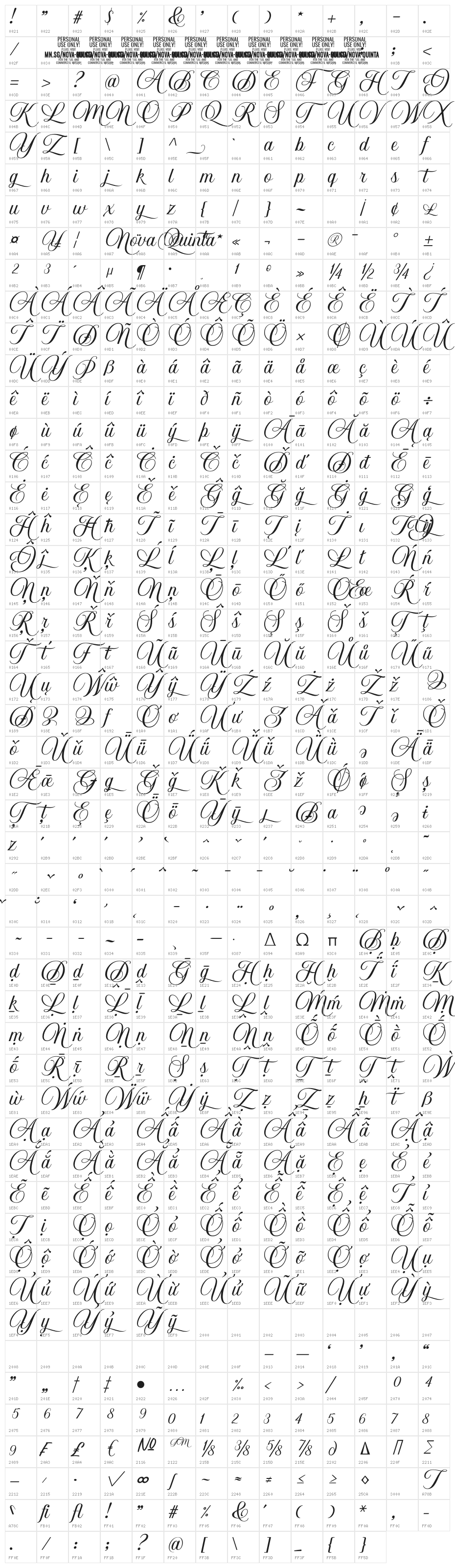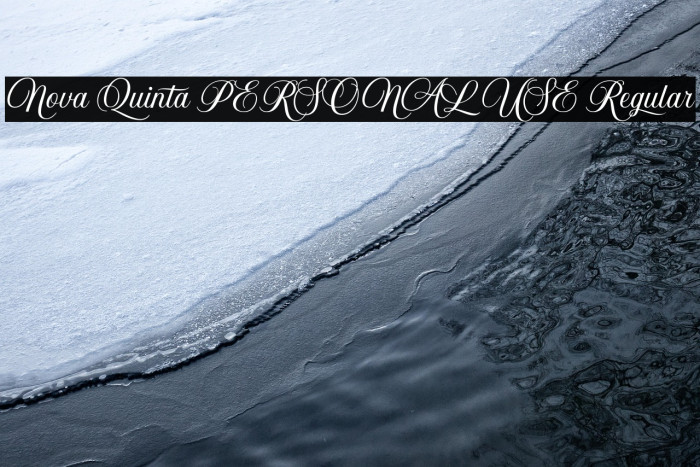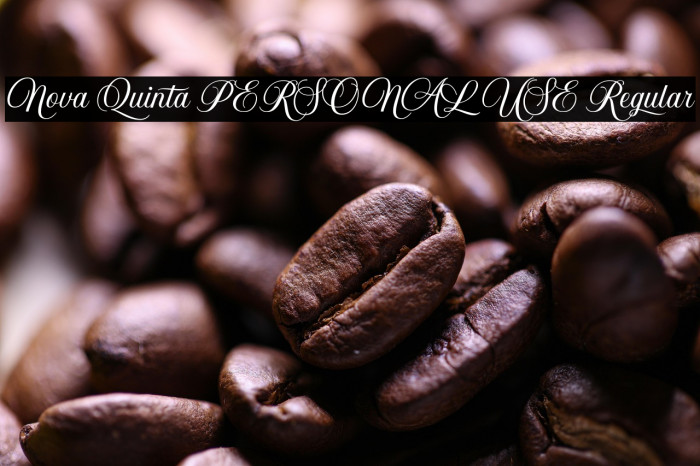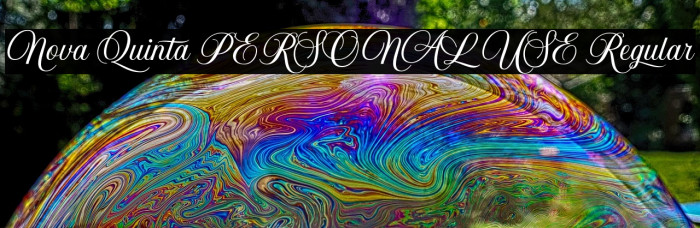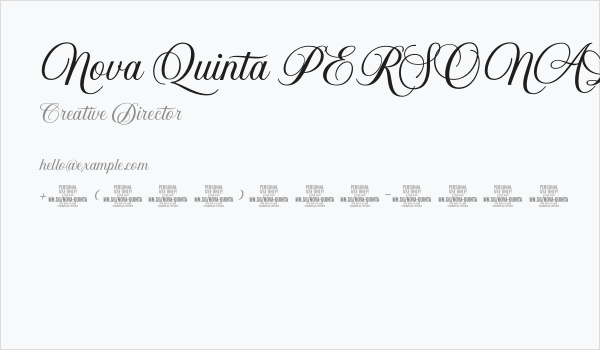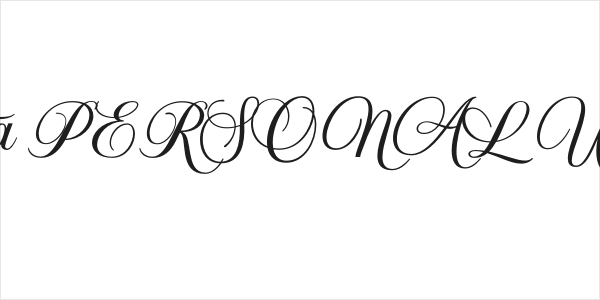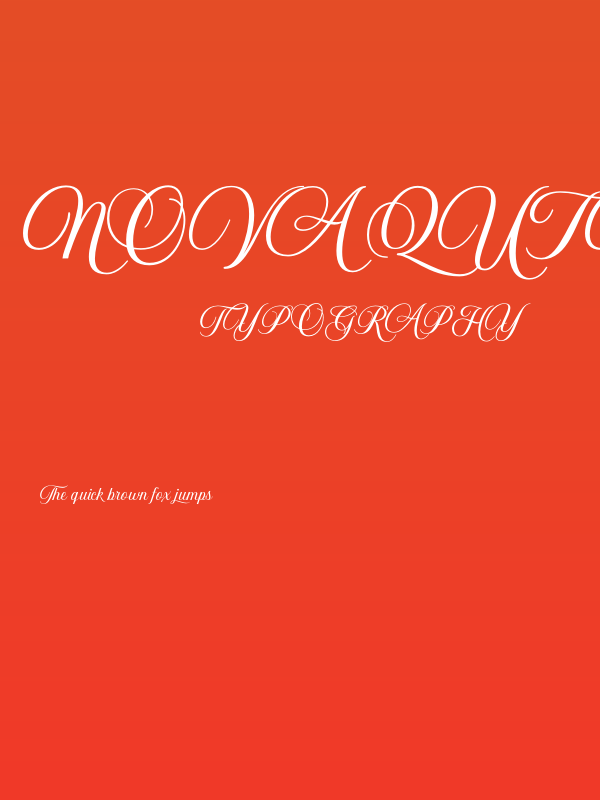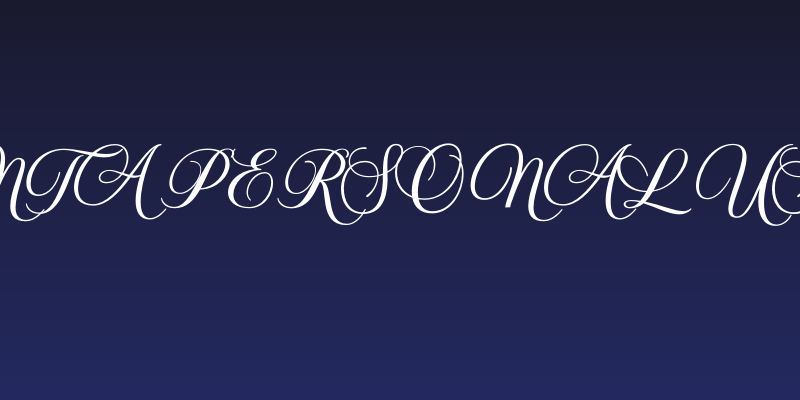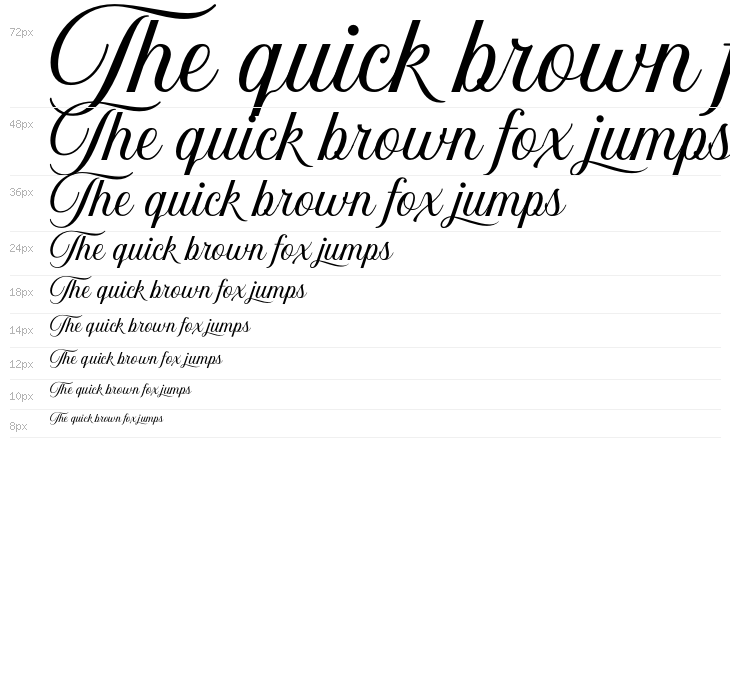
Nova Quinta PERSONAL USE Regular Font
Nova Quinta PERSONAL USE Regular Description
This elegant script font features a flowing, cursive style with intricate loops and flourishes. The uppercase letters are particularly ornate, with sweeping lines that give a sense of movement and grace. The lowercase letters maintain a consistent style, offering a harmonious blend of curves and angles. The numerals and special characters are designed to complement the overall aesthetic, making them suitable for decorative purposes. This font exudes a sense of sophistication and is ideal for projects that require a touch of elegance and flair.
| Proposed Projects | Ideal for wedding invitations, elegant branding, greeting cards, and decorative headings. |